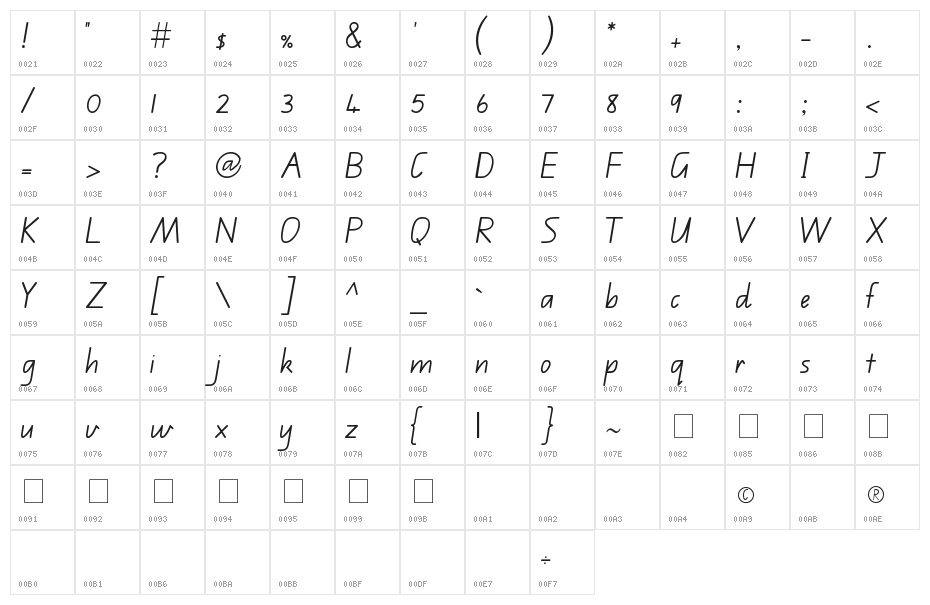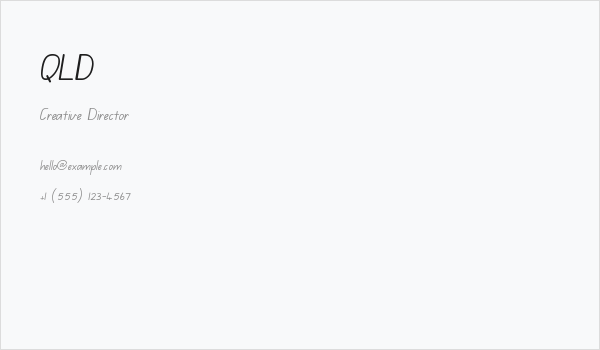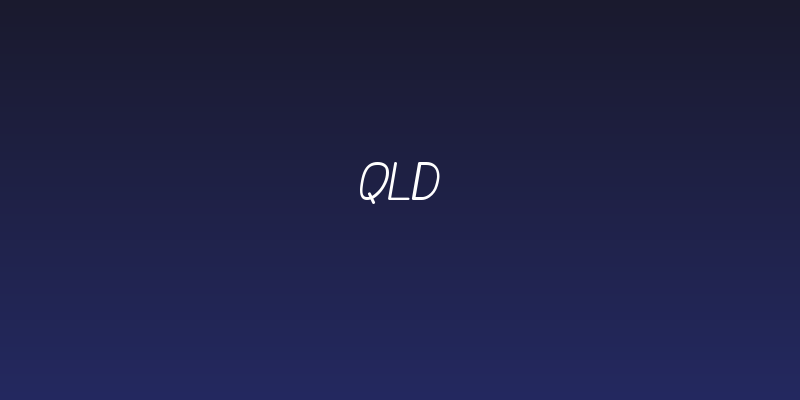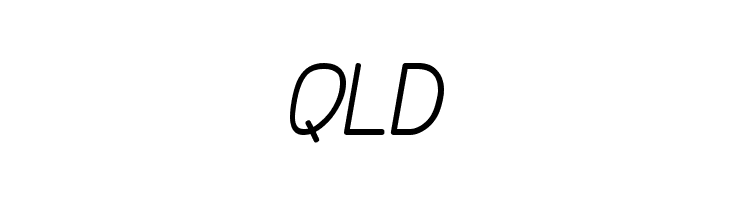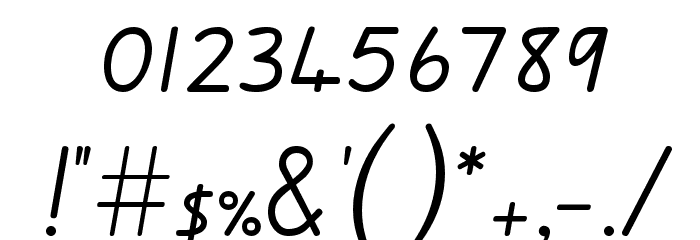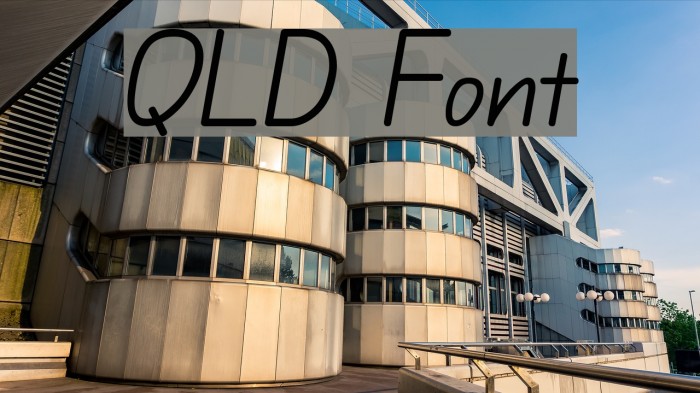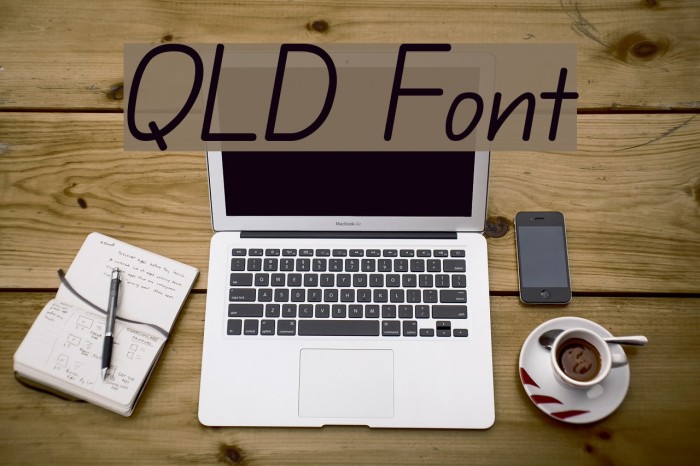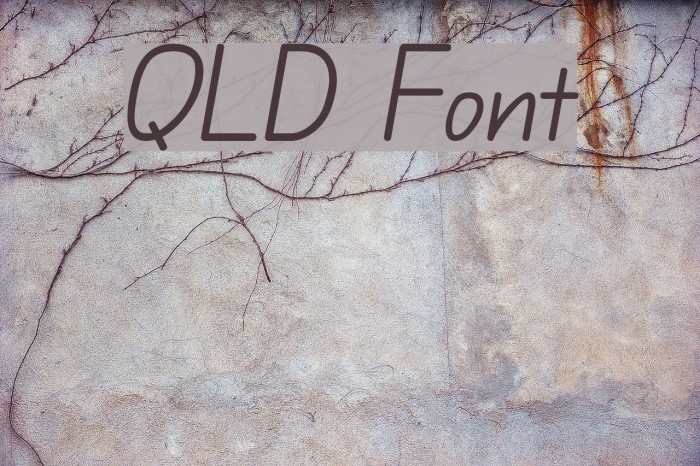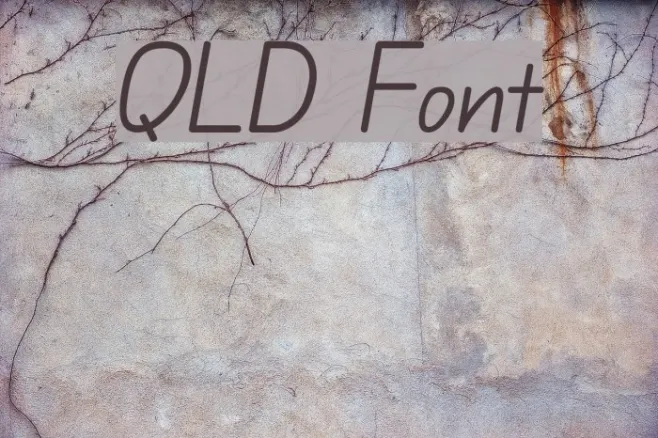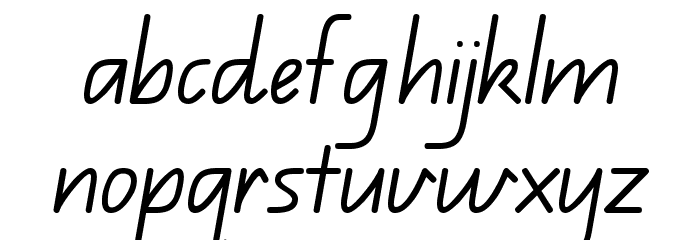
QLD Font
QLD Description
This font exhibits a modern, handwritten style with a casual and flowing appearance. The characters are slightly slanted, adding a dynamic and informal touch. The uppercase letters maintain a consistent height, while the lowercase letters vary slightly in size, contributing to a natural handwritten feel. The numerals are clear and legible, matching the overall style of the letters. The special characters are well-integrated, maintaining the same fluidity and style. The strokes are consistent in thickness, providing a medium contrast that enhances readability without sacrificing the font's casual aesthetic.
| Use Case | Logos, Headlines, Informal Text |
| Proposed Projects | Ideal for personal branding, casual invitations, greeting cards, and social media graphics. |